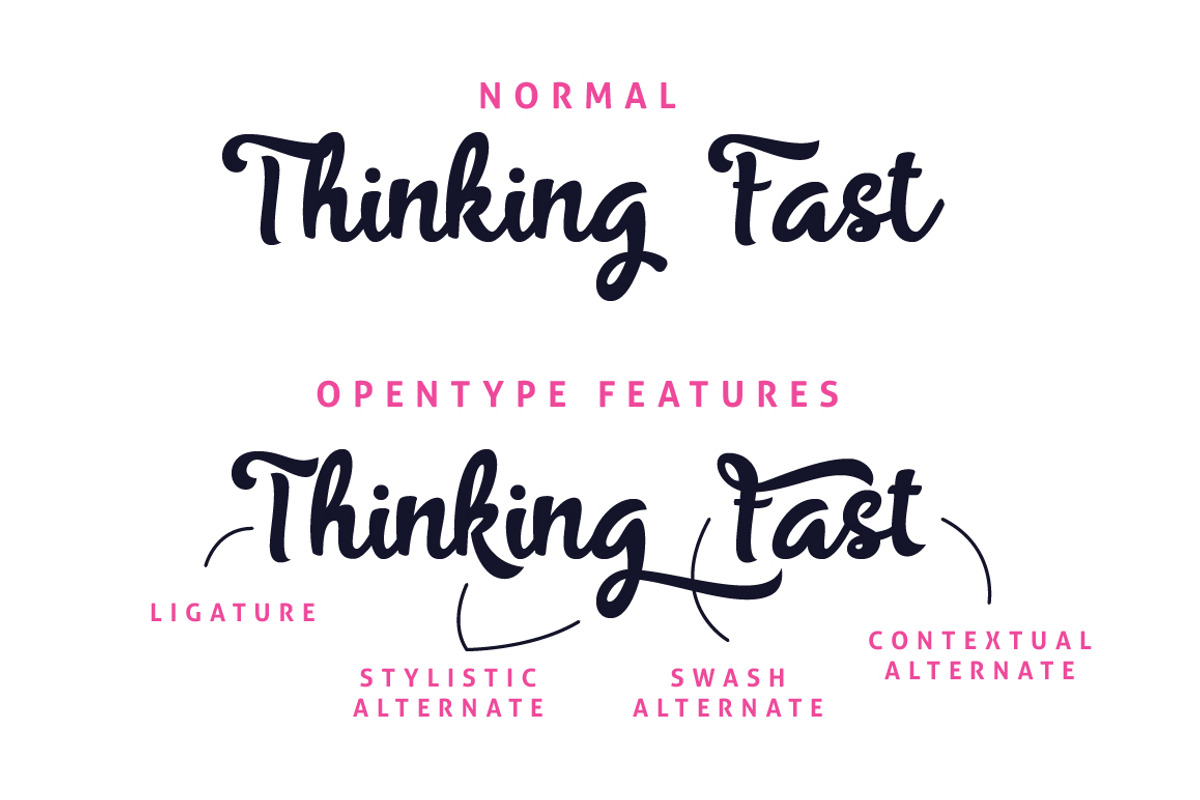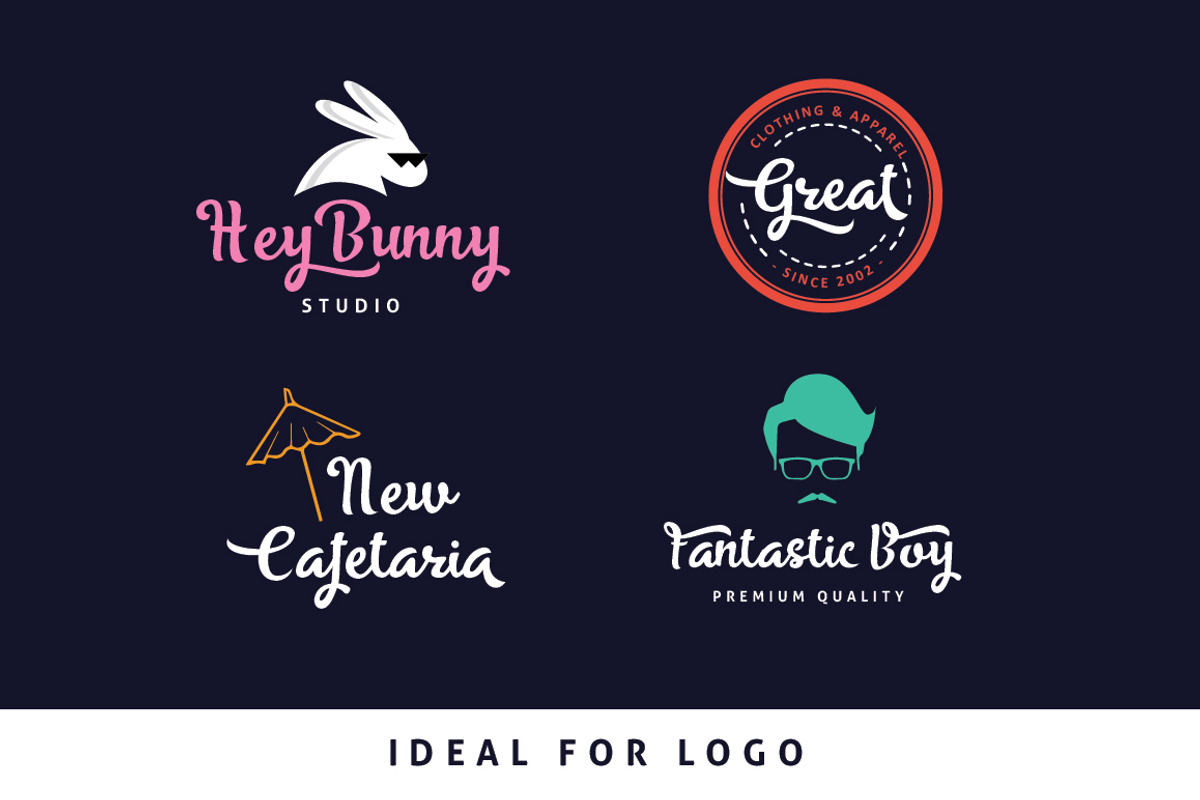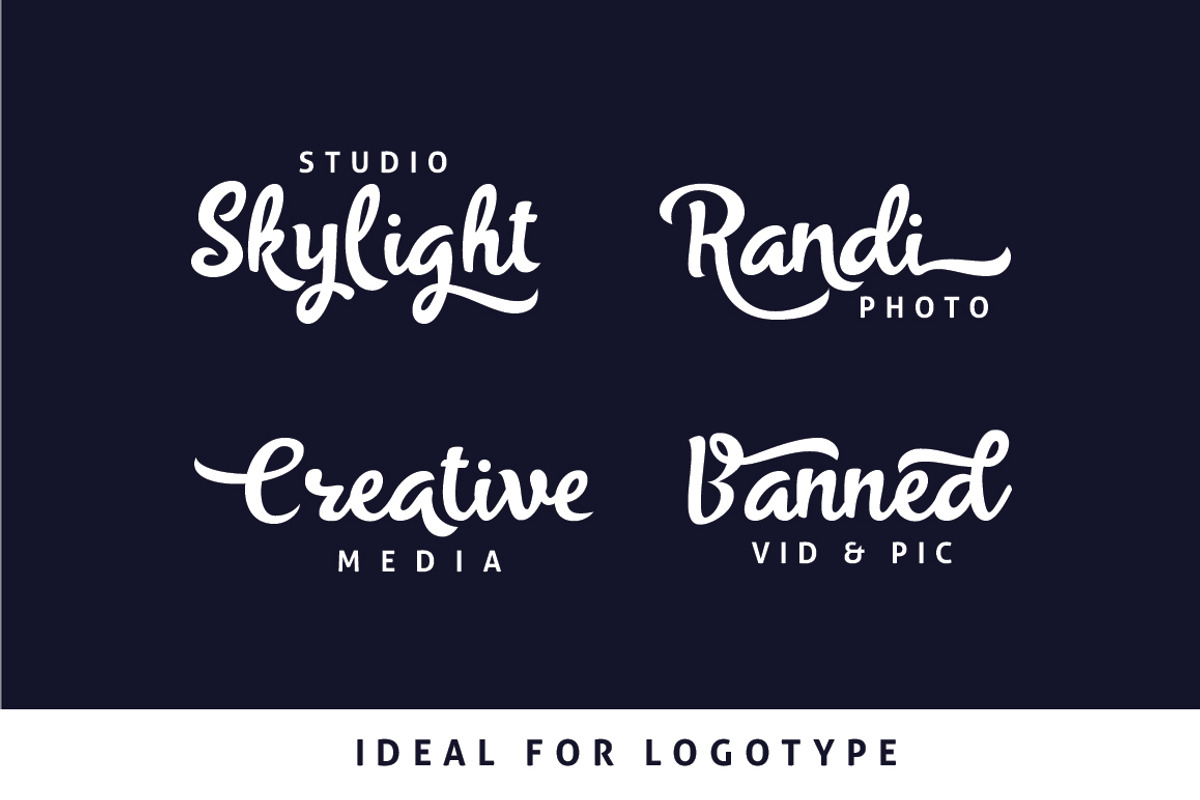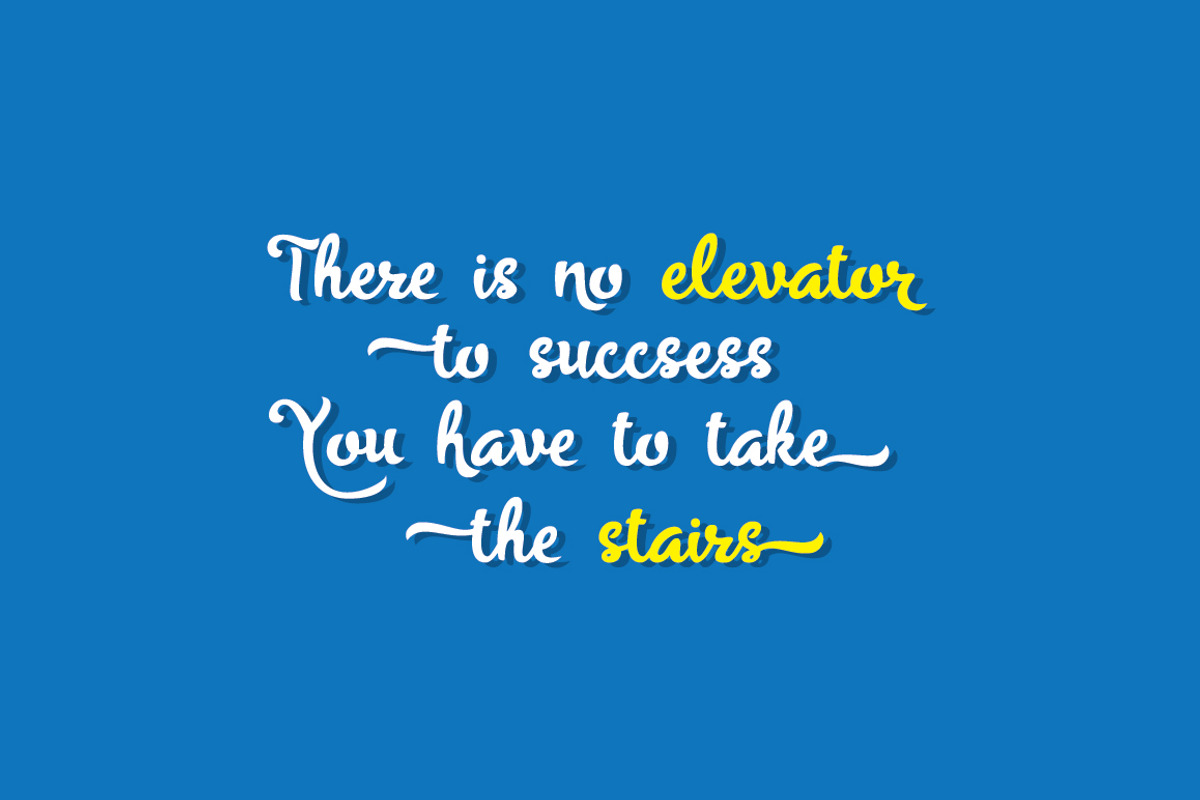
Skyoval Typeface (Intro 30% off) by ianmikraz is a font selected for branding, posters, packaging, typography.
- Bold, Modern, Simple & Elegant Skyoval Typeface features 344 glyphs and 156 alternate character contain with opentype features.
- Swash, Contextual, Stylistic alternates and Ligature.
- Mix and match the alternate characters to add an attractive message to your design.
- Features of Skyoval Typeface; Swash Contextual Alternate Standart ligatures Stylistic sets Languages Supported; Breton, Catalan, Czech, Dani
Skyoval Typeface (Intro 30% off) by ianmikraz fits naturally into Branding, posters, packaging, typography.